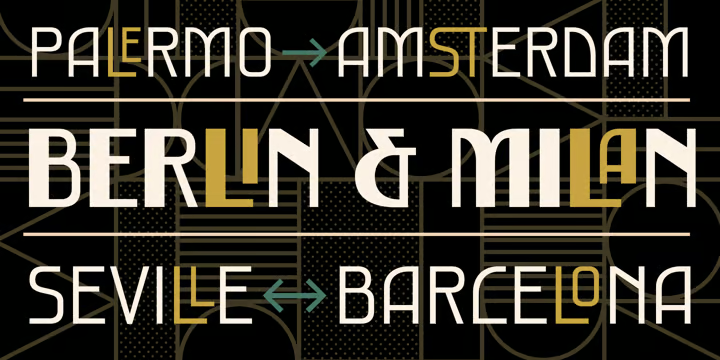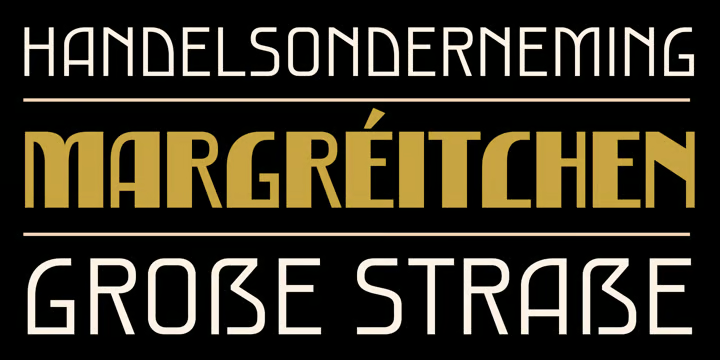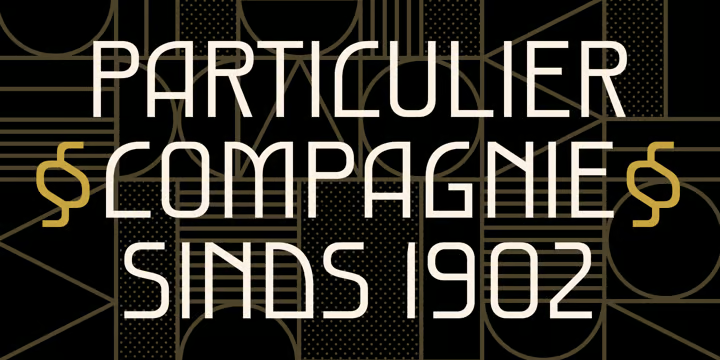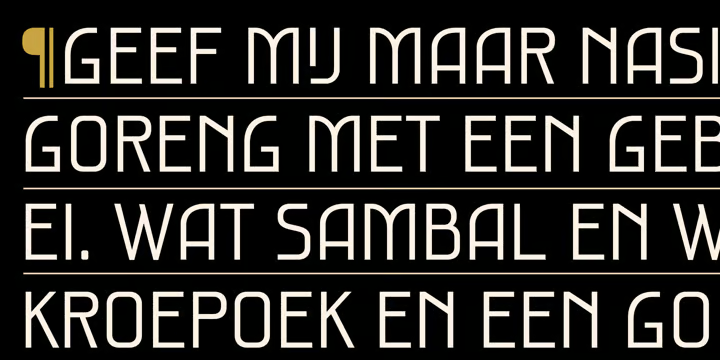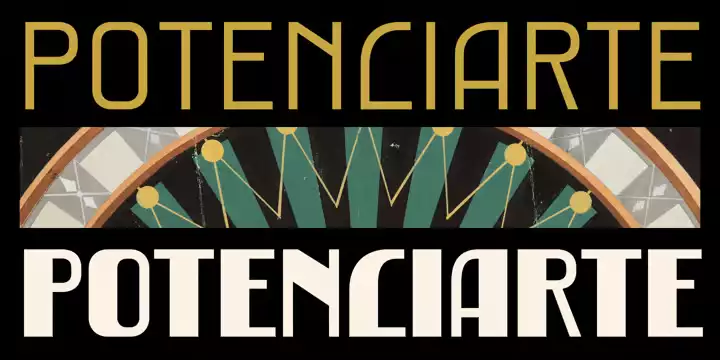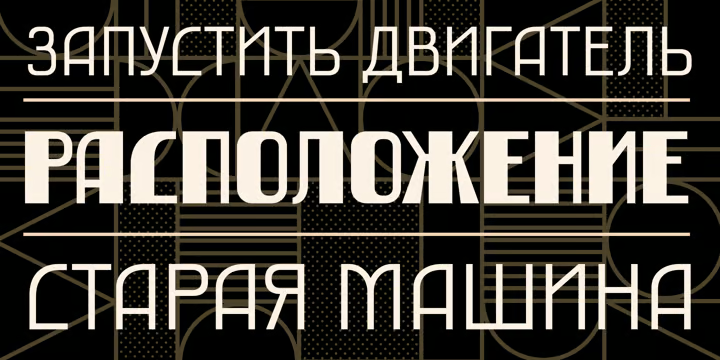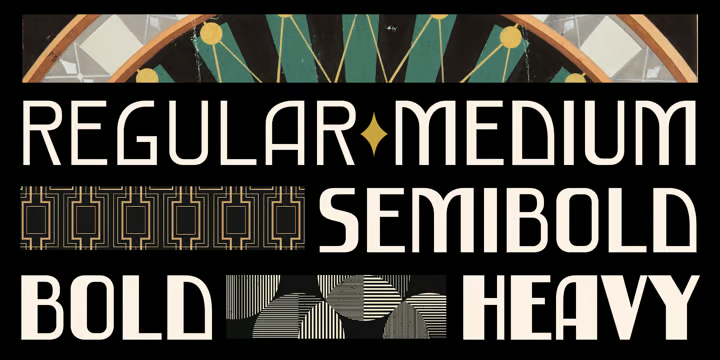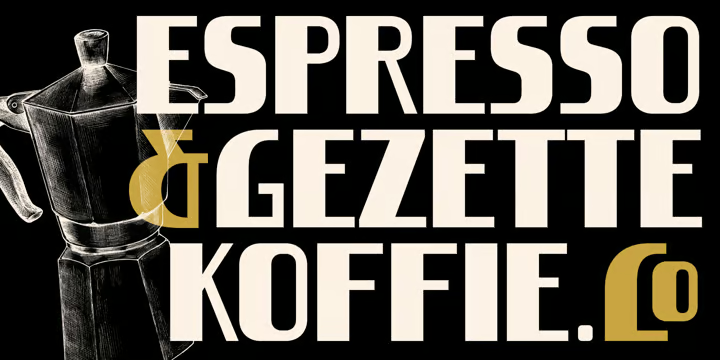
Potenciarte Font Family
Potenciarte is an all-caps display typeface inspired by the facade of old buildings from the era of Nederlandsch-Indie (1900’s) in Surabaya, where Art Deco & Art Nouveau…
Potenciarte is an all-caps display typeface inspired by the facade of old buildings from the era of Nederlandsch-Indie (1900’s) in Surabaya, where Art Deco & Art Nouveau typographic styles were widely used.